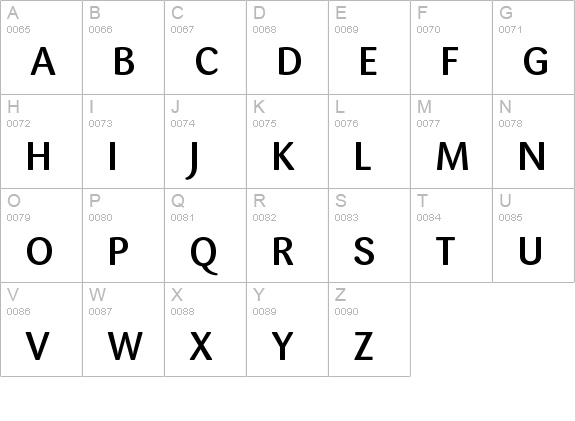
Sari-Medium is a balanced, medium-weight variant in the Sari typeface family \xE2\x80\x94 well suited to sub-headlines, navigation, and balanced editorial work.
Sari-Medium font is a stunning display typeface that effortlessly combines elegance with modernity. With its sleek lines and sophisticated curves, this font exudes a sense of refinement and style. Designed with versatility in mind, Sari-Medium font is perfect for a wide range of projects, from logo designs and branding materials to editorial layouts and advertising campaigns. Its clean and legible letterforms make it easily readable at both small and large sizes, ensuring that your message is conveyed effectively. One of the standout features of Sari-Medium font is its remarkable balance between strength and delicacy. Each letter is meticulously crafted, resulting in a harmonious blend of boldness and grace. This unique characteristic sets Sari-Medium font apart from other typefaces, making it a truly distinctive choice for any design project. What makes Sari-Medium font even more enticing is the fact that it is freely available to download at FontsMarket.com. This means that you can easily access and use this beautiful typeface without having to worry about any costs. Whether you are a professional designer or a hobbyist, the availability of Sari-Medium font for free allows you to enhance your creative endeavors without breaking the bank. So, if you are looking for a font that captures attention, exudes sophistication, and is freely accessible, look no further than Sari-Medium font. Download it today from FontsMarket.com and elevate your designs to new heights.